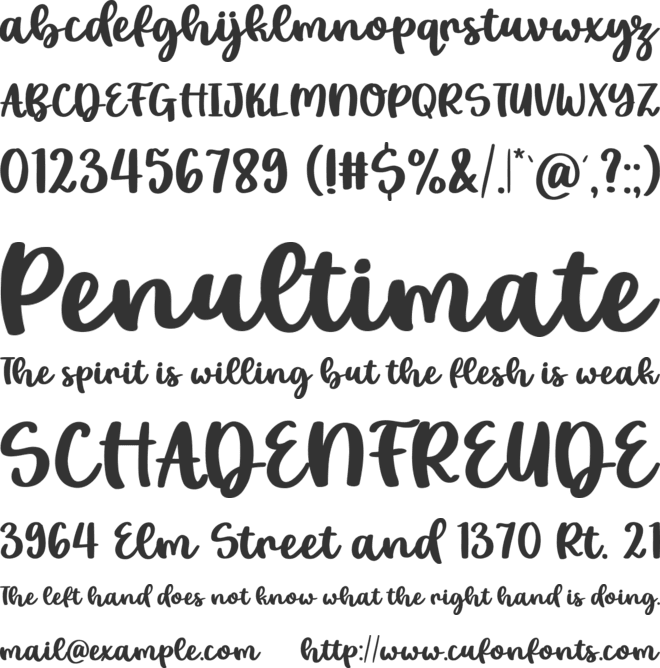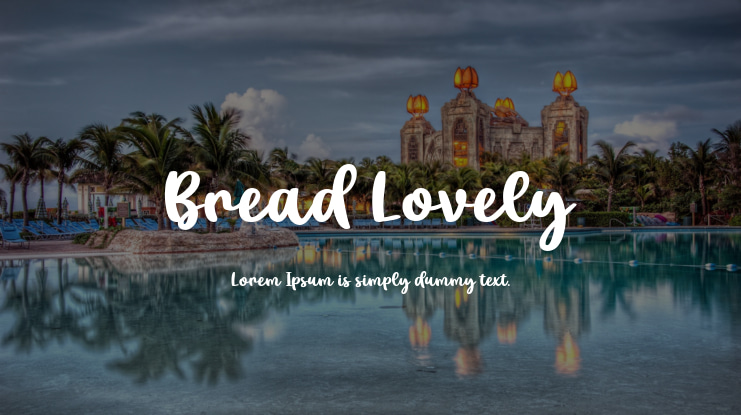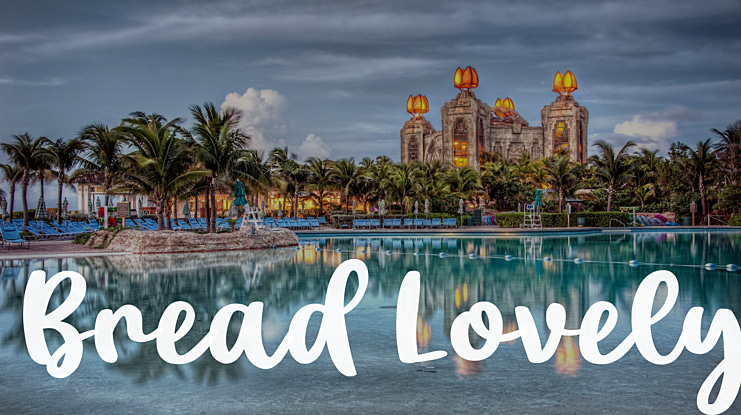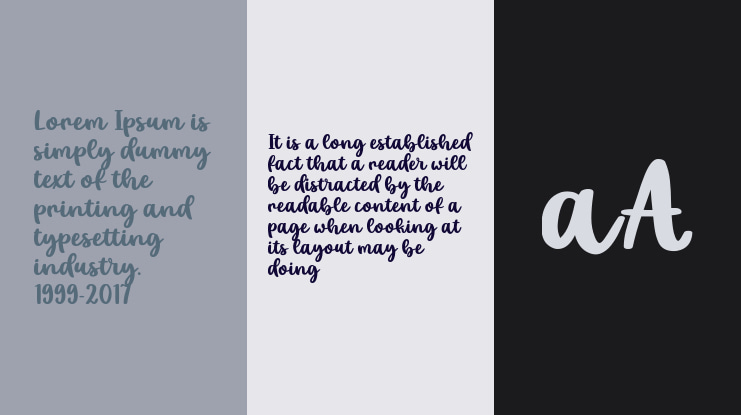
Bread Lovely Font
Cute handwritten script font perfect for quotes, shirt designs, websites, branding, children’s designs, blogs, logos, invitations and more